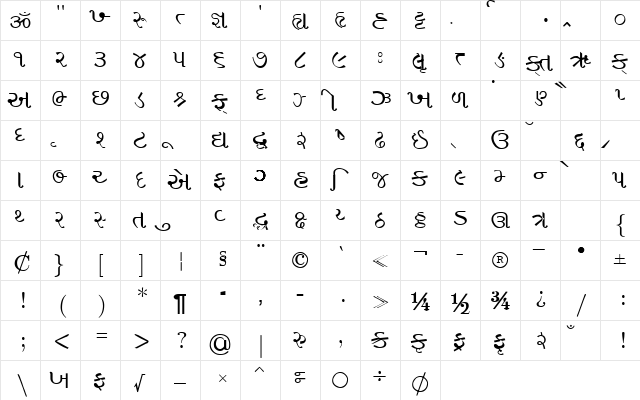
Vakil_01 Normal
Design Context for Vakil_01 Typeface
Vakil_01 offers clean, dependable letterforms without strong stylistic allegiance, making it a practical choice for designers who need flexibility.